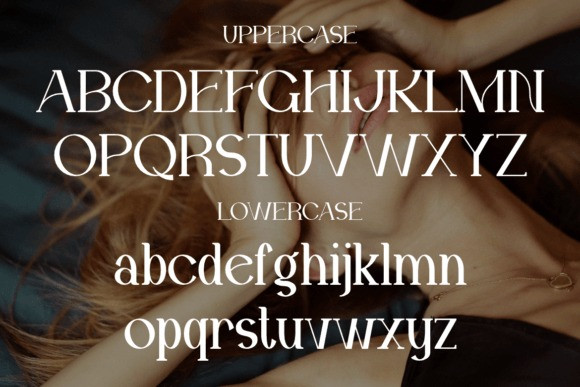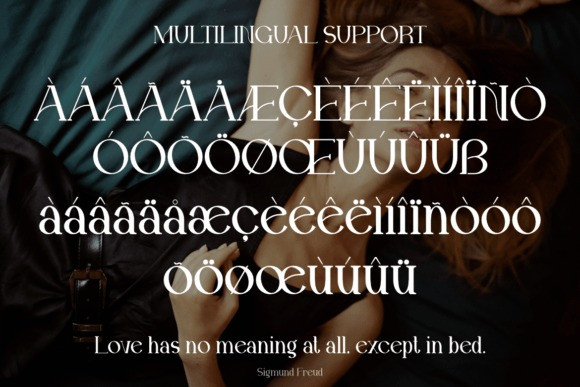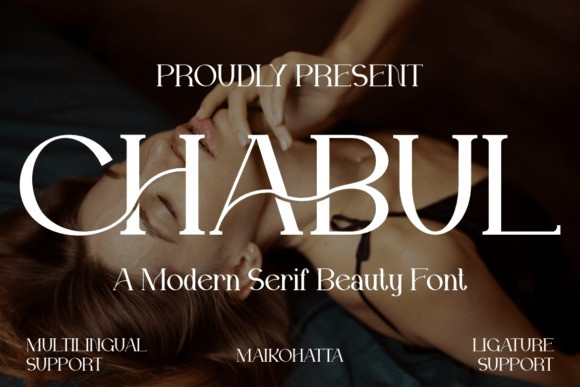
Chabul Font
CHABUL Font – Beauty Serif Font  – Modern Font is a bold and authentic display font. The font is suitable for any branding project like logo, template design, esport, and many more. outstanding in a wide range of contexts.